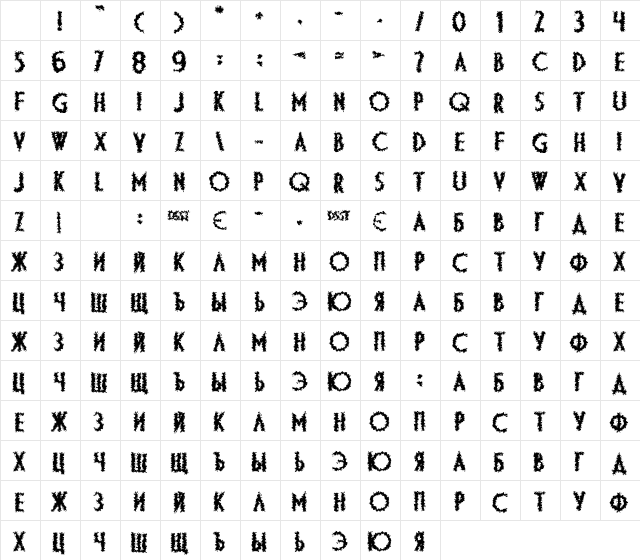
Complete DS Diploma Art Bold glyph index. Displaying only characters natively supported by DS Diploma Art Bold font.
DS Diploma Art is a composed and adaptable typeface that performs quietly and consistently across a wide range of design contexts. Its bold stroke weight gives it real presence on the page.